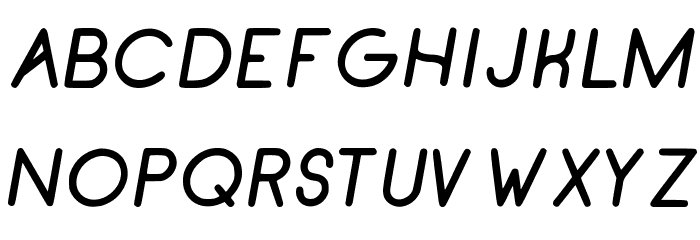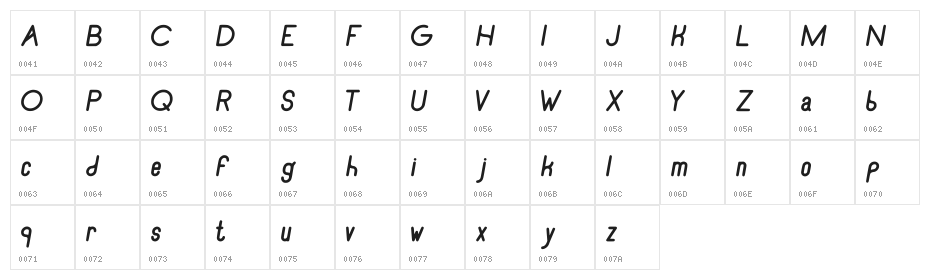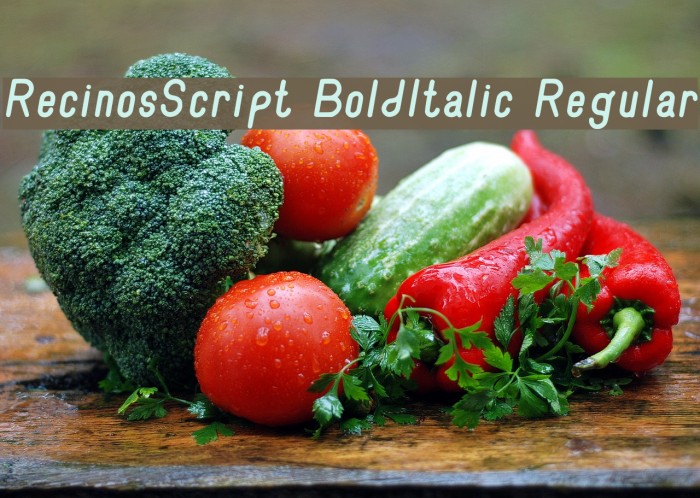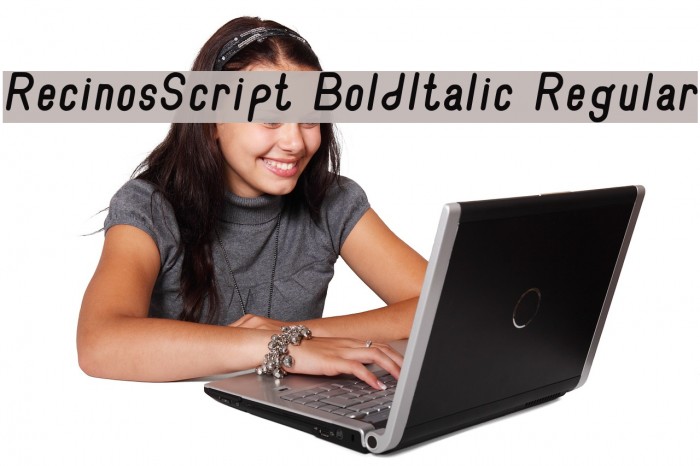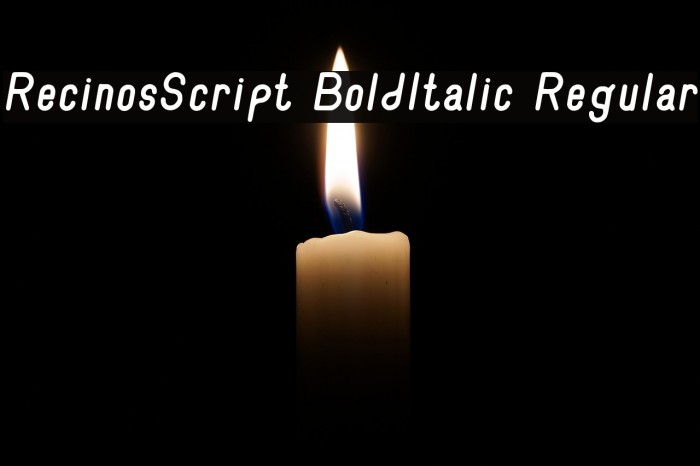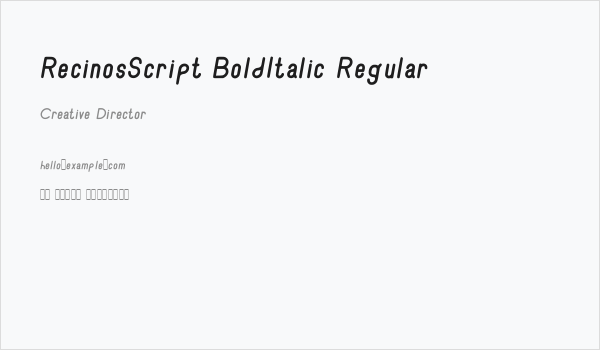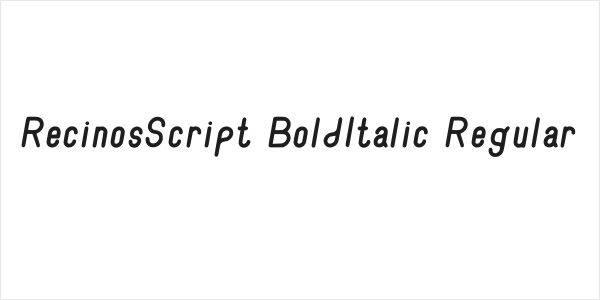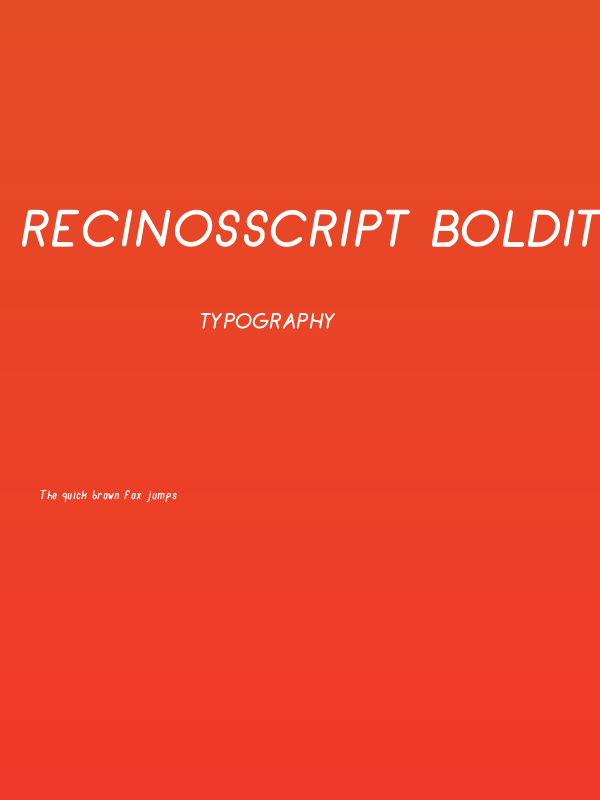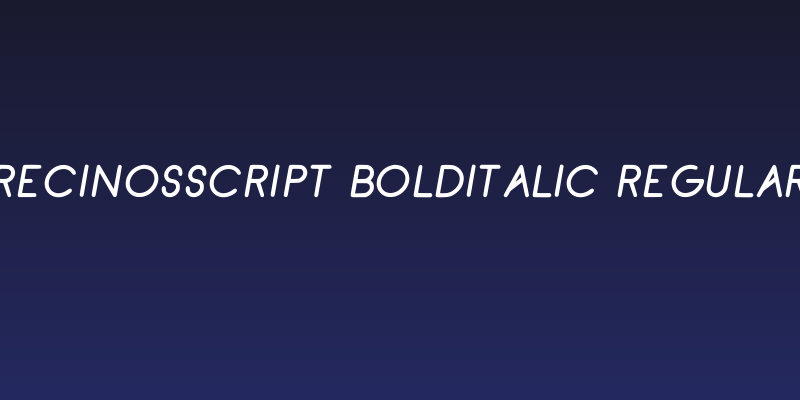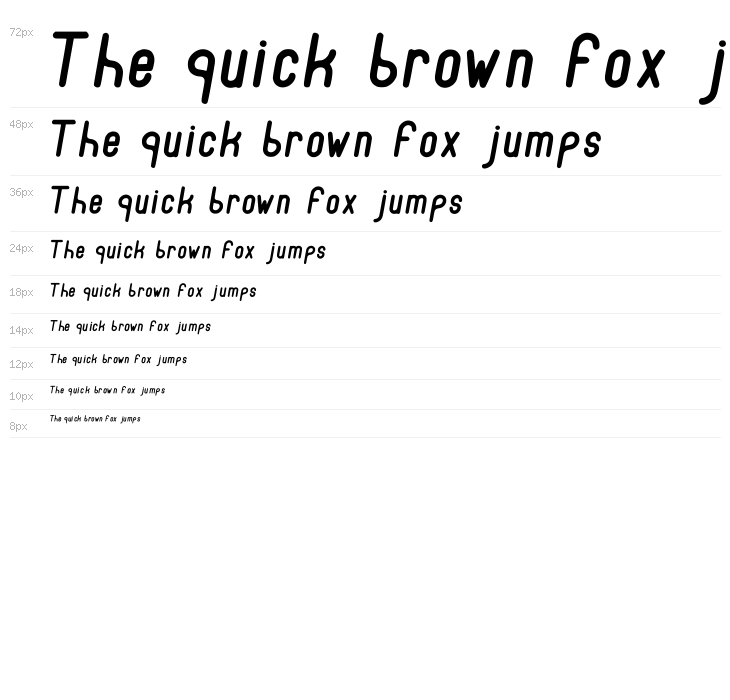
RecinosScript BoldItalic Regular Font
RecinosScript BoldItalic Regular Description
This font features a dynamic and fluid script style, characterized by its bold and italicized form. The letters exhibit a smooth, flowing motion with a slight slant, giving it a handwritten appearance. The uppercase letters are elegantly crafted, maintaining a consistent height that complements the lowercase letters, which are slightly more rounded and playful. The numbers and special characters follow the same stylistic cues, ensuring uniformity across all glyphs. The overall design is both modern and approachable, making it suitable for a variety of creative applications.
| Use Case | Logos, Invitations, Creative projects |
| Proposed Projects | Ideal for branding, invitations, greeting cards, and creative projects that require a personal touch. |